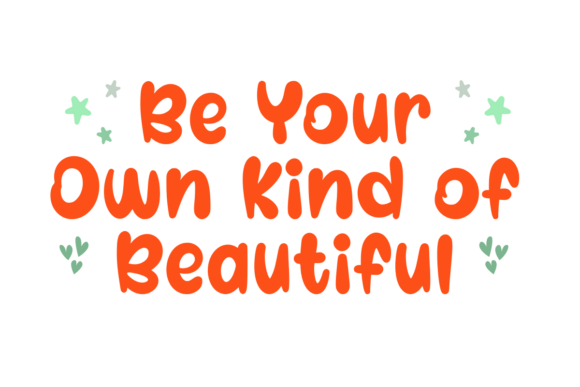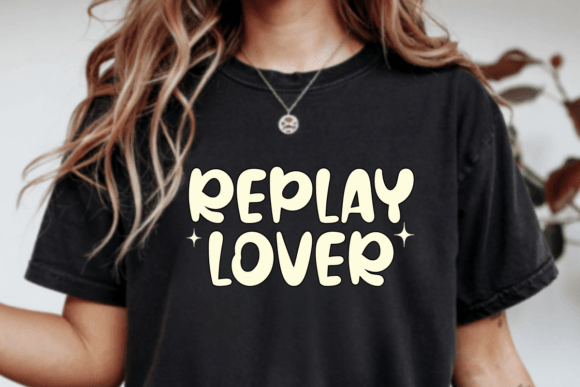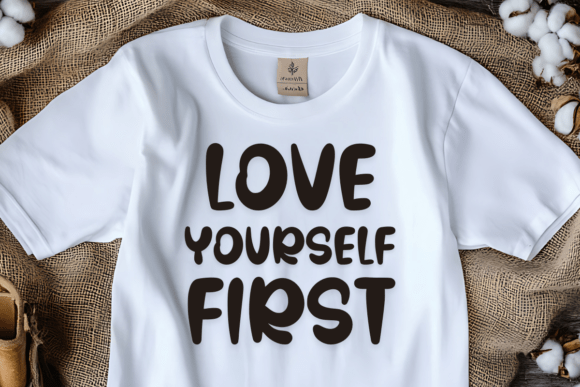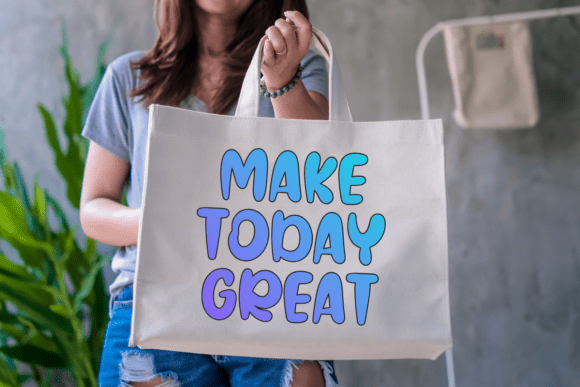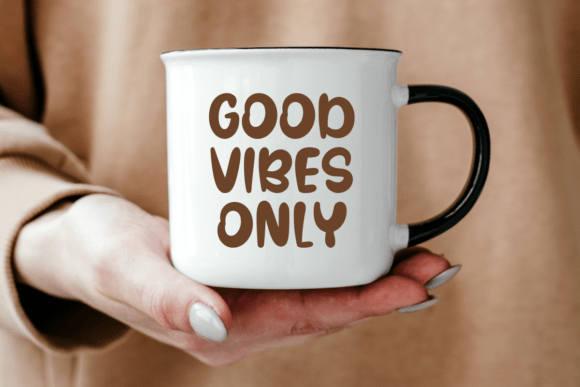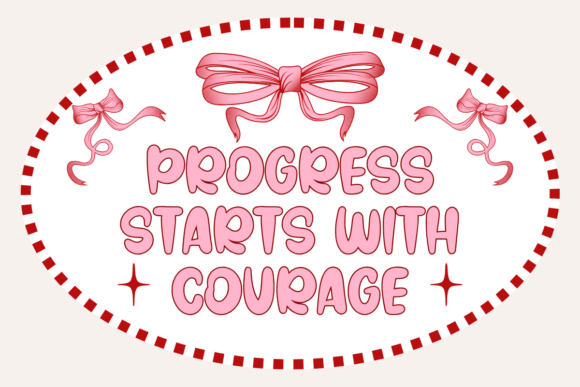
Bubble Holiday Font: The Ultimate Guide to a Groovy Modern Bubble Display Font
Have you ever been in the middle of a design project, and suddenly, you just can’t seem to find the right font? I recall a particularly frustrating experience while working on a vibrant summer-themed poster. My client wanted something that screamed fun, nostalgia, and playfulness. After hours of scrolling through font libraries, I stumbled upon the Bubble Holiday font. It was love at first sight! ✨
What Makes Bubble Holiday So Special?
Bubble Holiday is more than just a font – it’s an experience. This modern bubble display font embodies a retro-modern design that is both groovy and high-energy. Its thick, rounded letterforms with playful “cut-out” details give it a unique, airy personality that’s hard to ignore.
What I Love About Bubble Holiday
- ✨ High-impact visibility: This font is designed to make your text pop, making it perfect for eye-catching social media graphics, vibrant event posters, and modern apparel design.
- ✅ Playful and cheerful: The bold and cheerful structure of Bubble Holiday makes it an excellent choice for children’s branding, summer-themed marketing campaigns, and fun packaging.
- 🌈 Versatile color pairing options: Pair this typeface with bright neon colors or soft pastel gradients to create dynamic visuals.
While Bubble Holiday is an amazing font, there are a few things to keep in mind: ⚠️ It may not be the best choice for body text due to its bold nature. Also, some of the cut-out details might not render well at very small sizes, so it’s best used for headlines or titles. 🤔
The Backstory Behind Bubble Holiday
Imagine a team of designers in the 1970s, inspired by the era’s vibrant culture and music. They set out to create a font that captured the essence of that groovy time. With influences from retro billboards, funky album covers, and classic cartoons, Bubble Holiday was born. Today, it brings that nostalgic feel to modern designs.
| Font Name | Bubble Holiday Font |
| Author | Minimalist Eyes |
| What makes Bubble Holiday unique? | Its thick, rounded letterforms with playful “cut-out” details give it a unique, airy personality. |
| Is Bubble Holiday suitable for body text? | No, it’s best used for headlines or titles due to its bold nature. |
| Does Bubble Holiday support OpenType features? | Yes, Bubble Holiday supports OpenType features, glyphs, and stylistic alternates for advanced typography. |
Bubble Holiday is more than just a font – it’s a design statement. With its unique blend of retro charm and modern appeal, it’s sure to elevate your projects and make them stand out. So go ahead, give Bubble Holiday a try, and let your designs pop! 🌟